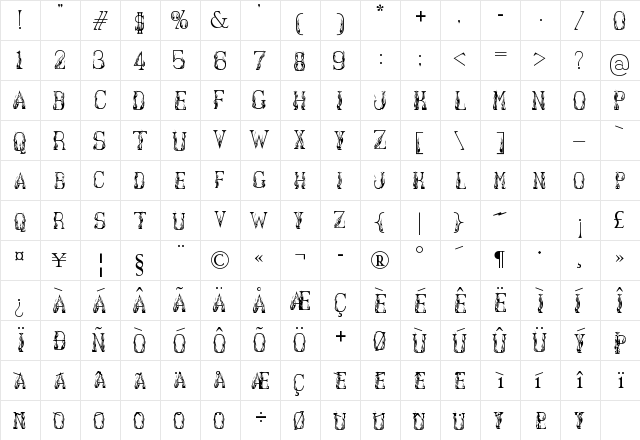
Hot Librarian Regular
Design Context for Hot Librarian Typeface
Hot Librarian is a composed and adaptable typeface that performs quietly and consistently across a wide range of design contexts.